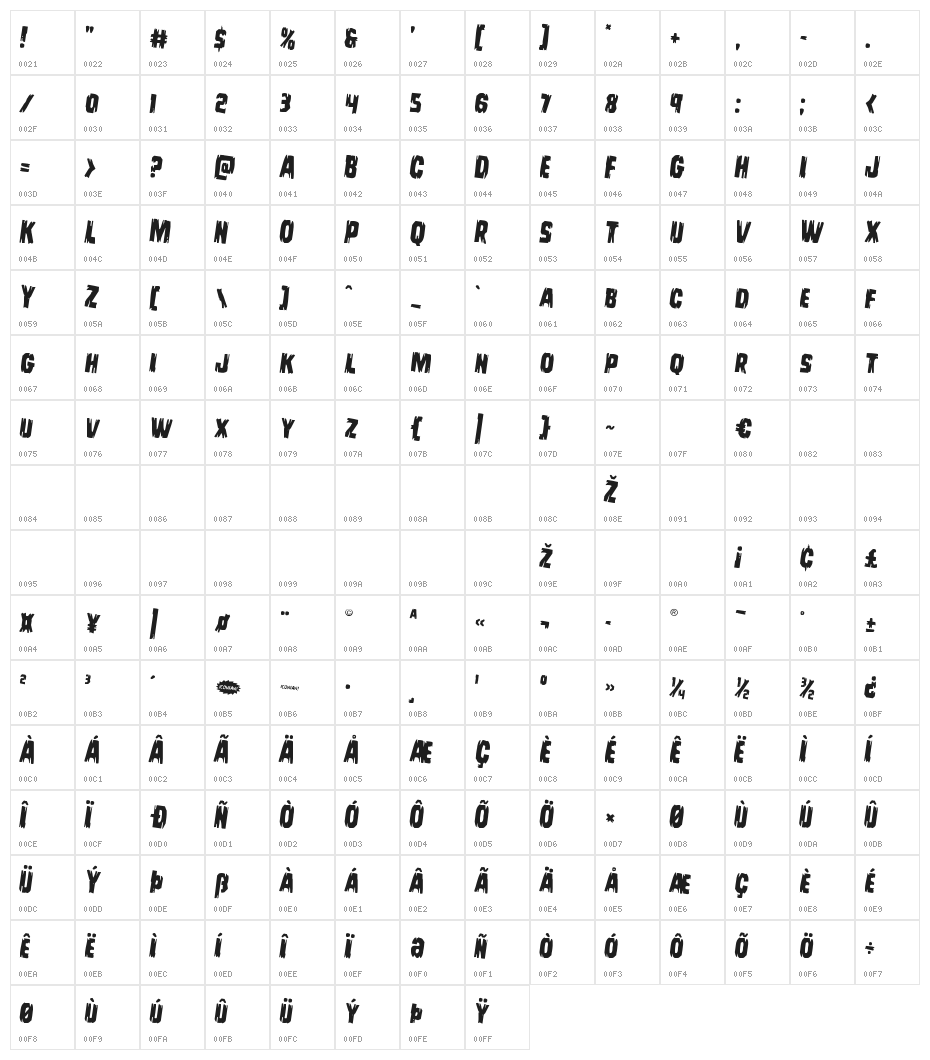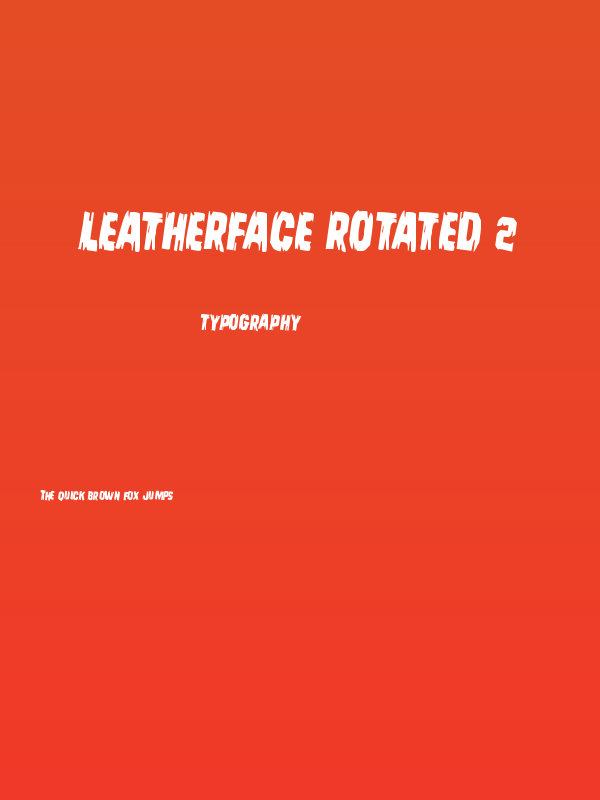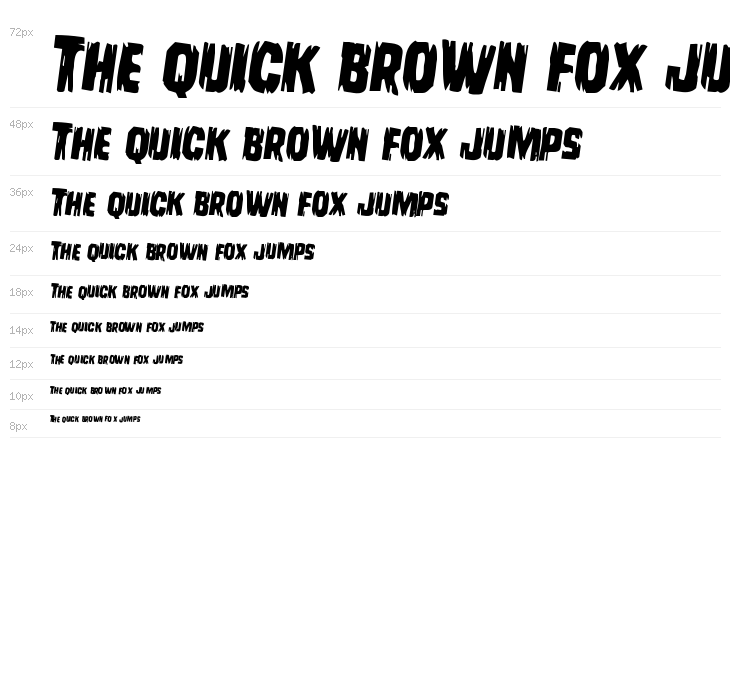
Leatherface Rotated 2 Font
Leatherface Rotated 2 Description
This font features a bold and rugged design, characterized by its jagged edges and distressed appearance. The letters are heavily stylized, giving off an intense and somewhat chaotic vibe. The uppercase and lowercase letters maintain a consistent style, with sharp angles and irregular shapes that suggest a sense of movement and energy. The numbers and special characters follow the same design principles, ensuring a cohesive look across all glyphs. This font is ideal for projects that require a dramatic and eye-catching typeface, such as horror-themed designs or edgy branding.
| Proposed Projects | Ideal for horror-themed designs, edgy branding, posters, and album covers. |